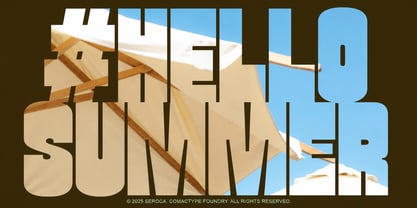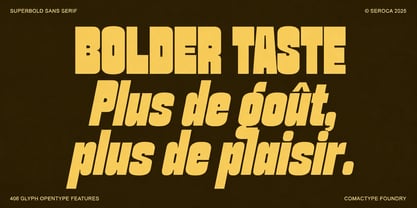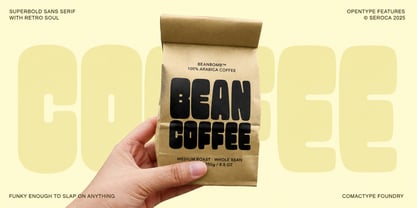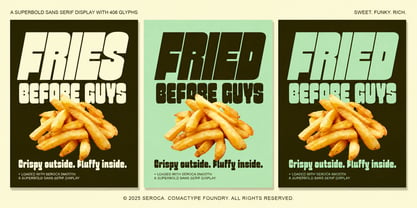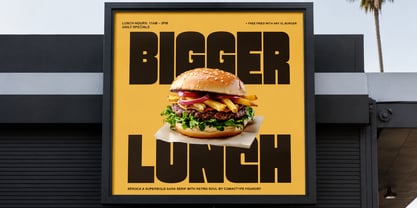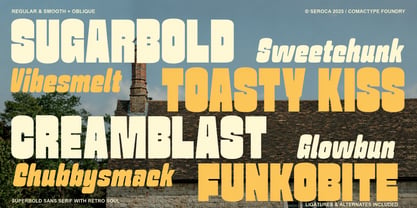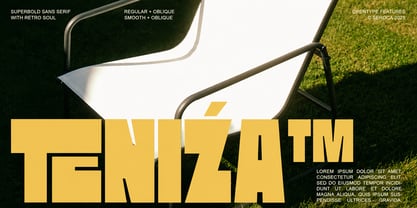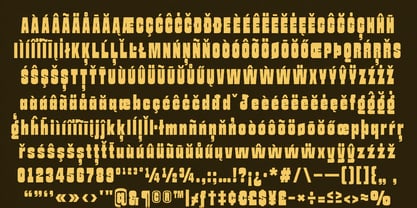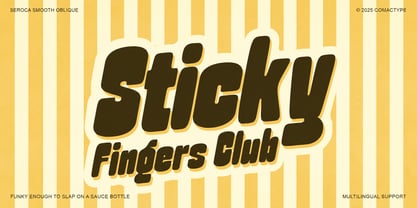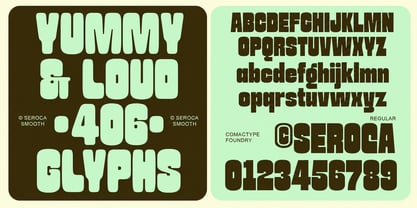
Seroca
by Comactype Foundry
The Seroca Font Family was designed by Hasnul Bolkiah and published by Comactype Foundry. Seroca contains 4 styles and family package options. More about this family
Seroca is a bold sans serif font imbued with a funky, retro-inspired essence. Featuring chunky letterforms, sharp inktraps, and playful shapes, it is ideally suited for dynamic design uses, such as product labels, food packaging, or vintage-style posters.
Available in four distinctive styles—Regular, Oblique, Smooth, and Smooth Oblique—Seroca offers full multilingual support alongside its OpenType features. With its striking presence and robust character, this font is designed to stand out in any creative endeavor.